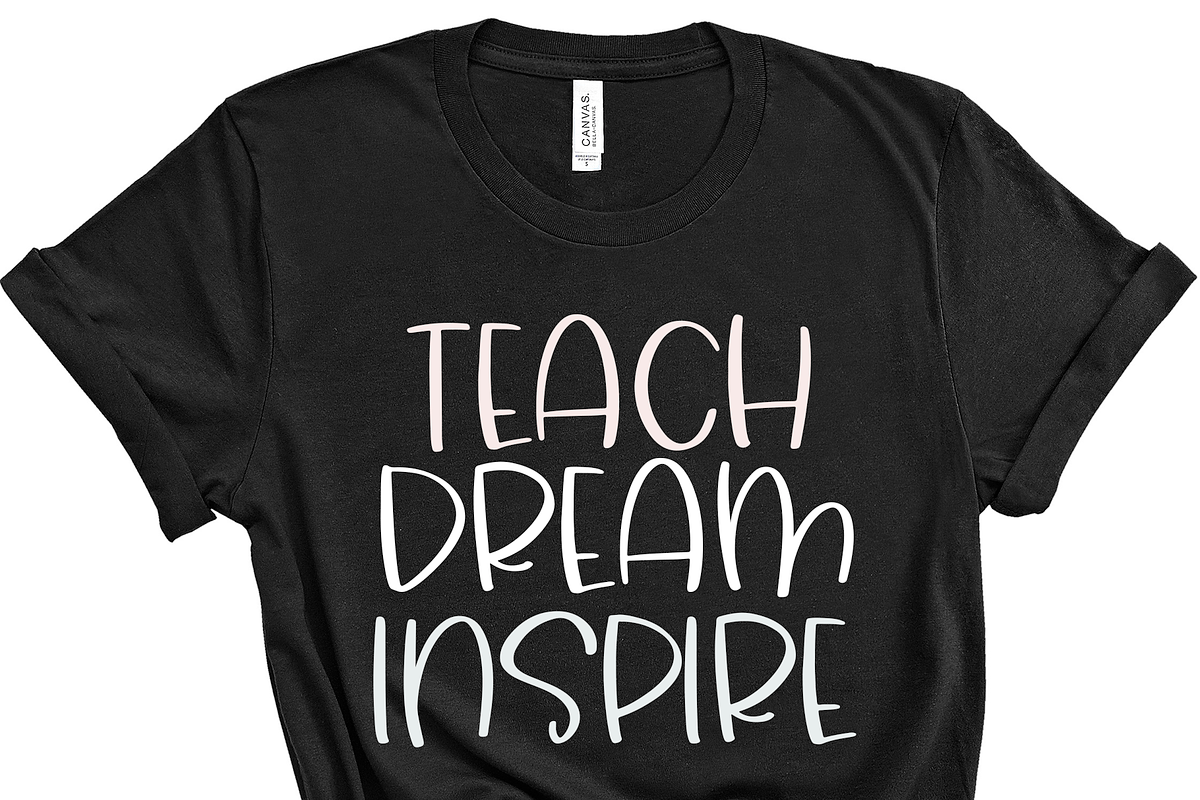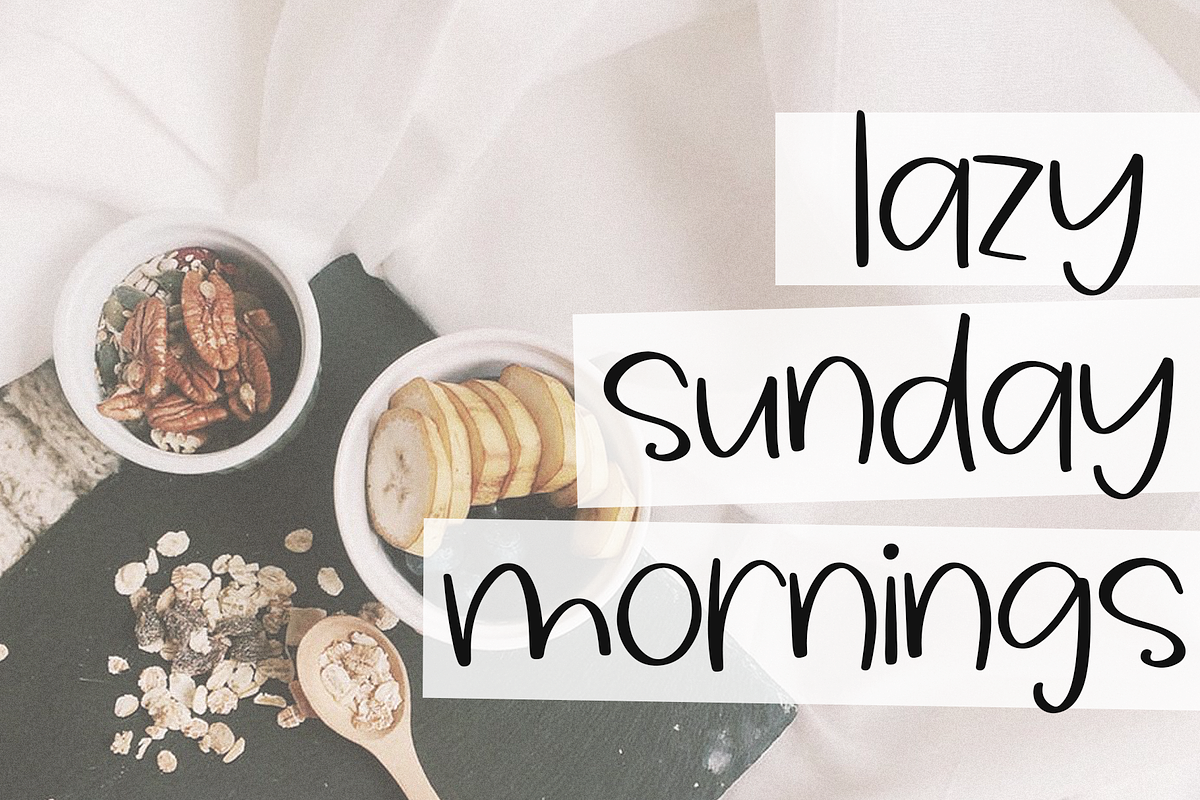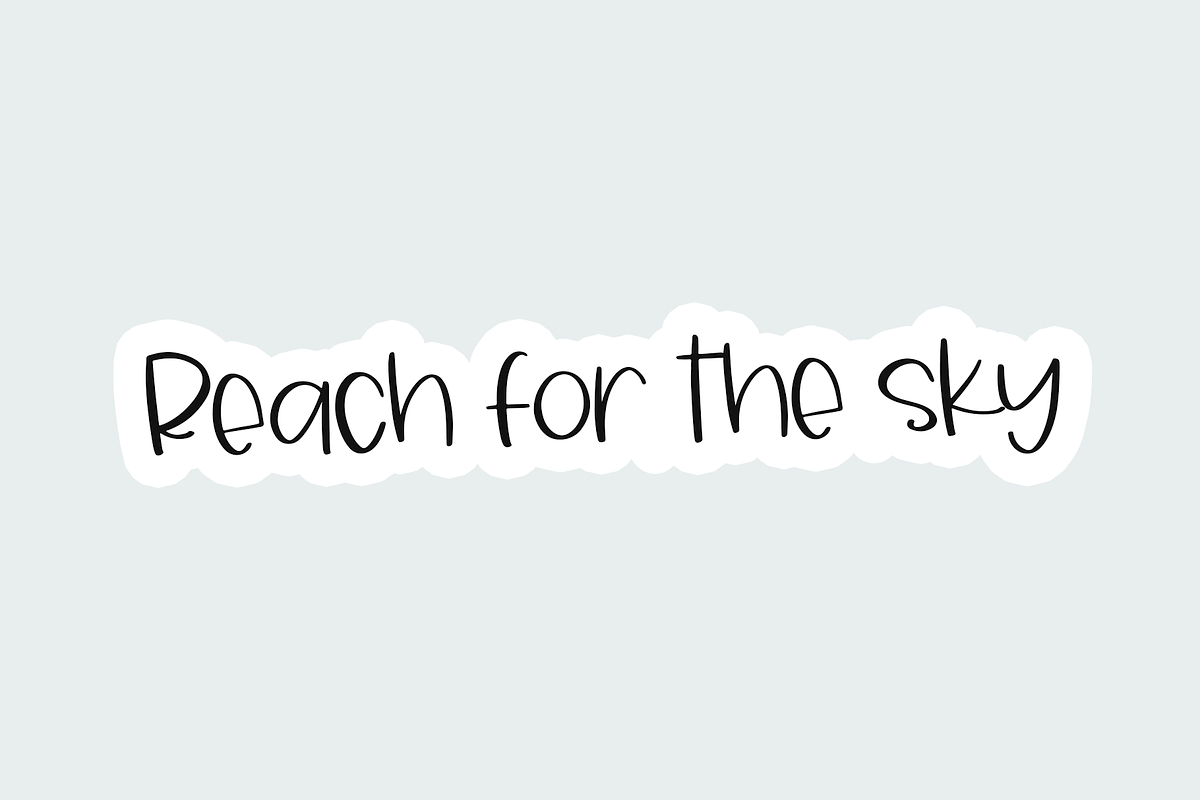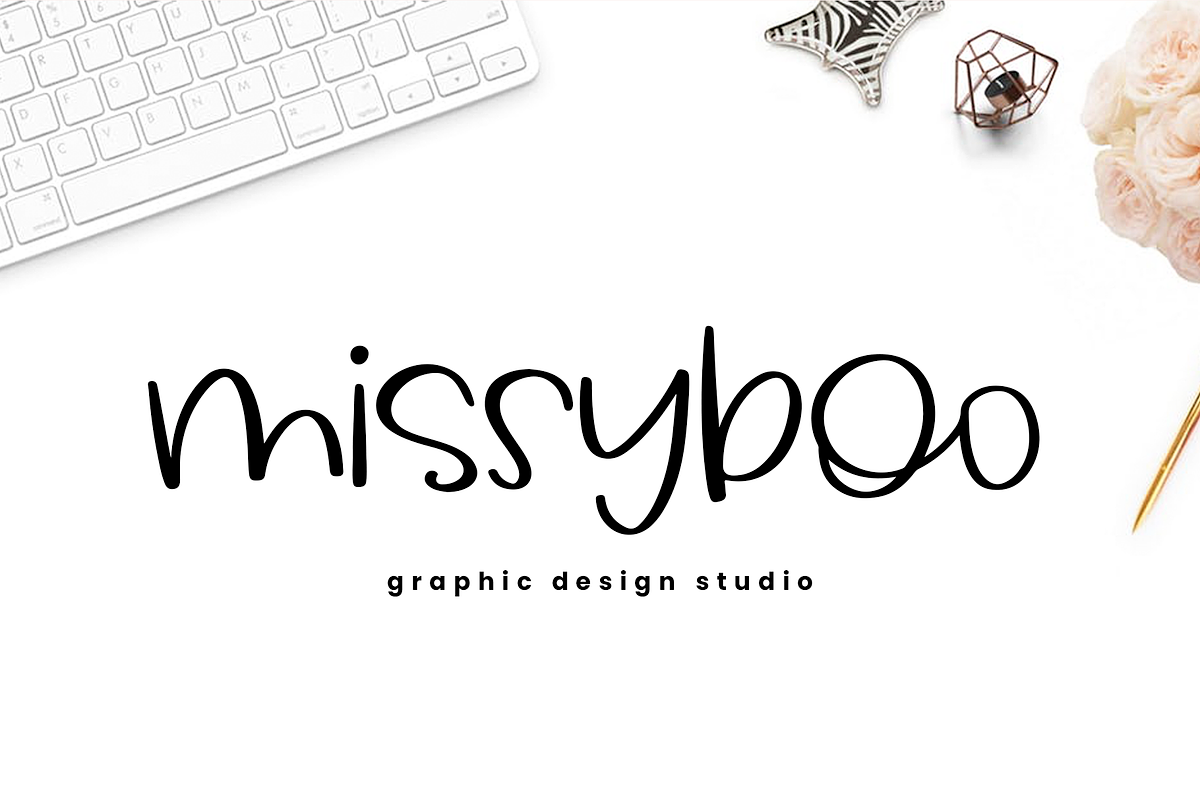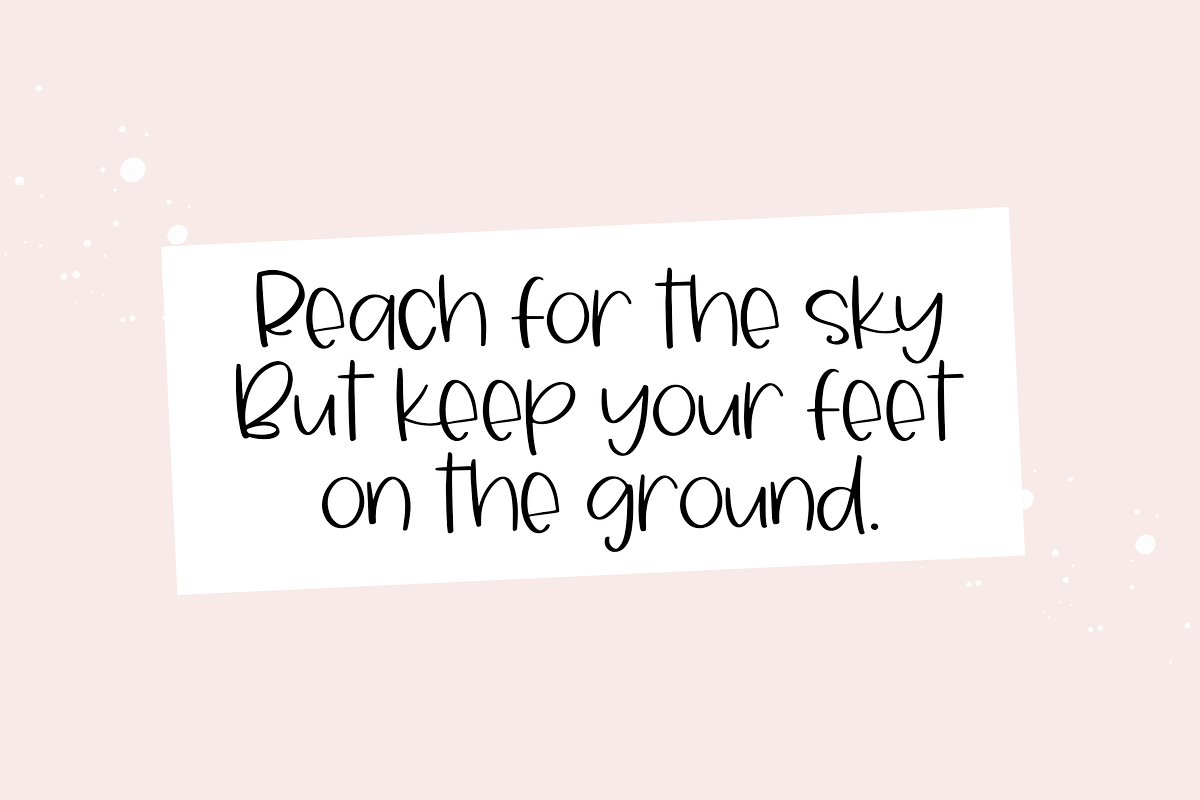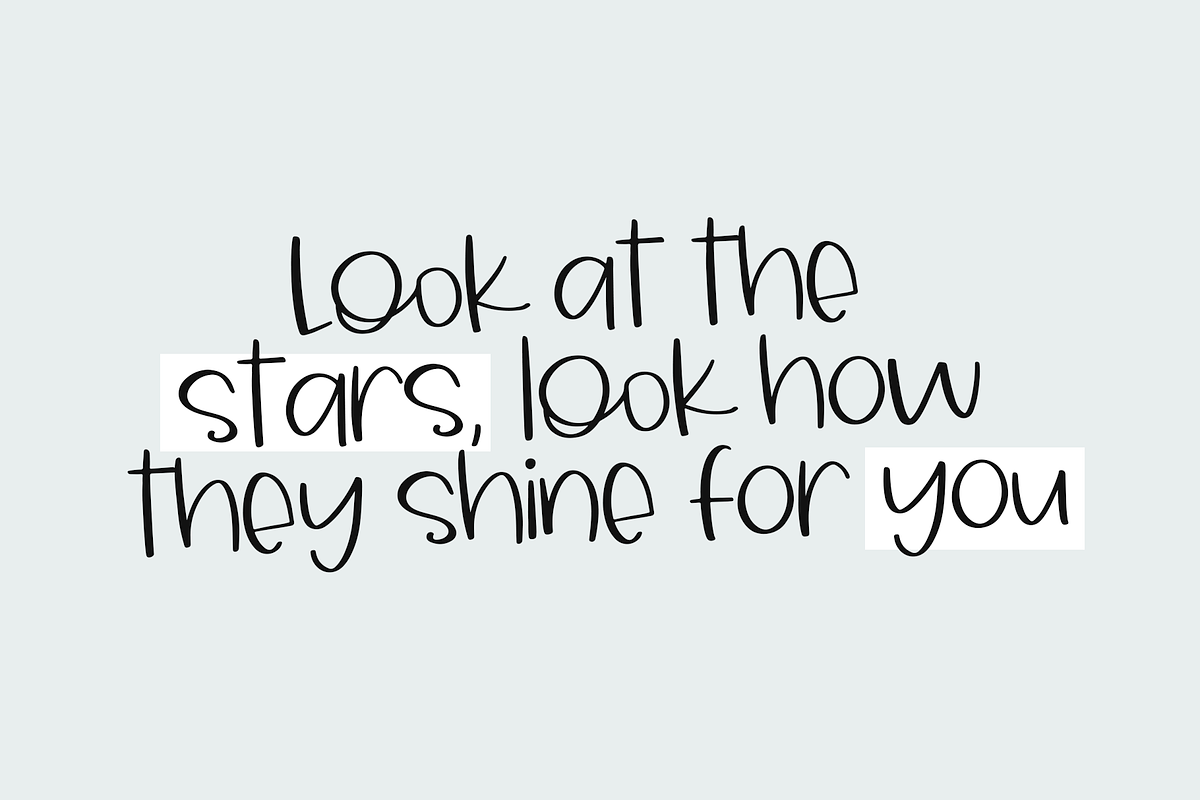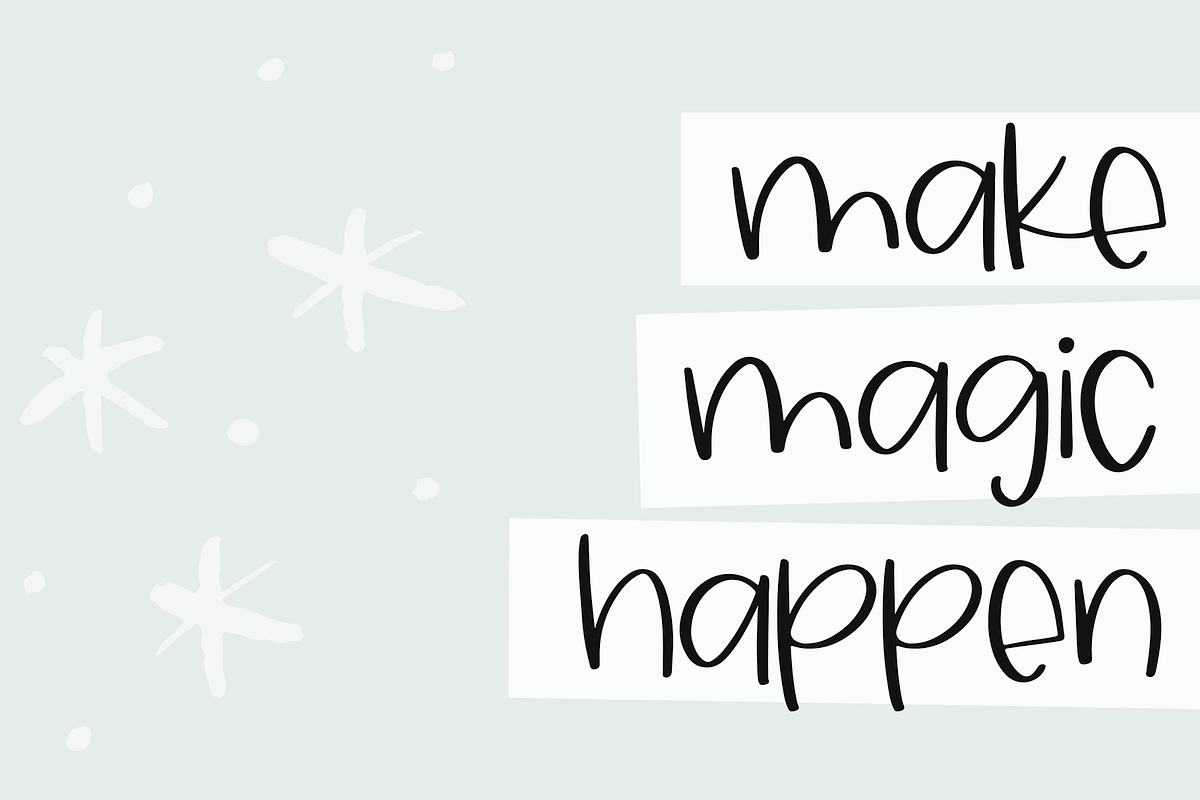
Sky Light | Quirky Handwritten Font
Sky Light is a cute & quirky handwritten font!
This font is perfect for quotes, shirt designs, websites, branding, children's designs, svg designs, blogs, logos, invitations and more!